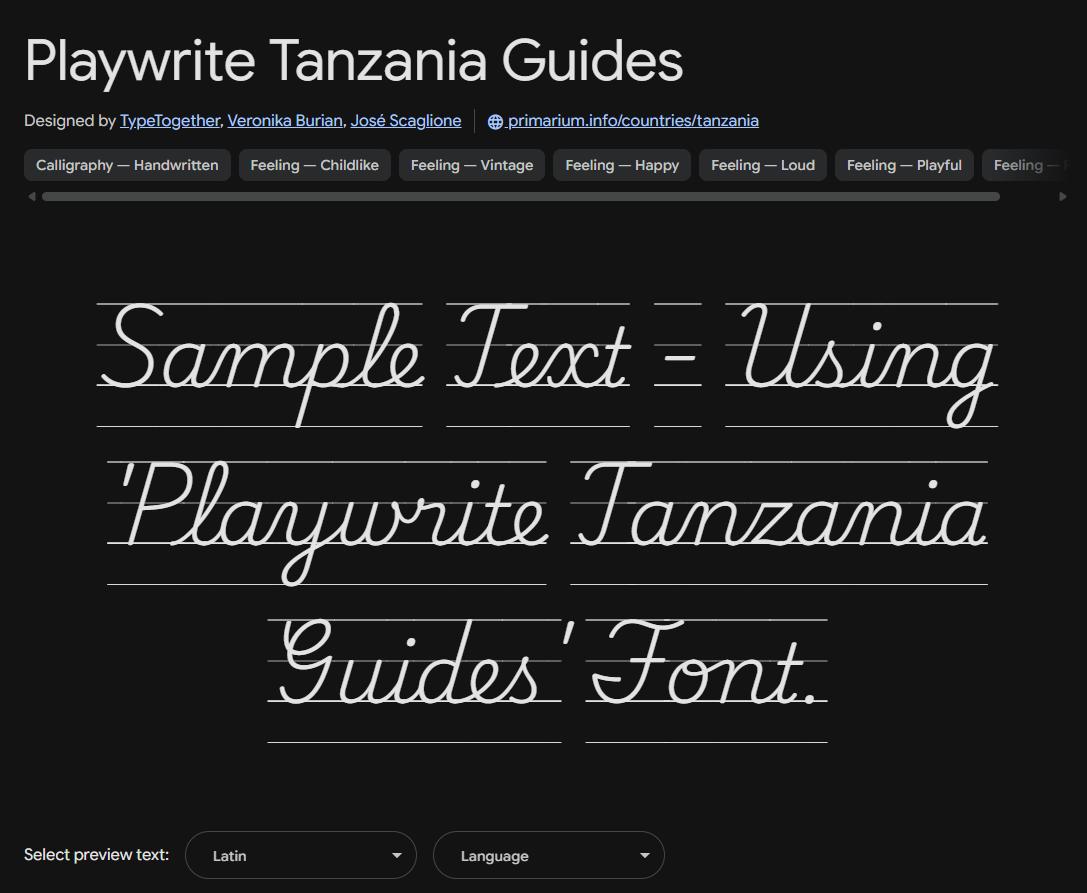
Playwrite Tanzania Guides, a specialized single-style typeface developed by Veronika Burian and José Scaglione of TypeTogether, represents a sophisticated intersection of pedagogical theory and digital type engineering. Designed to facilitate Tanzanian handwriting instruction, the font incorporates integrated vertical metrics and explicit baseline guides that serve as a scaffold for motor-sensory script development. By meticulously calibrating x-heights and ascender ratios to meet local educational standards, the designers have translated traditional penmanship nuances into a robust character set optimized for legibility and digital rendering. This release underscores the industry's shift toward localized, function-driven typography, utilizing precise stroke modulation and contextual glyph structures to provide a technically superior resource that supports linguistic diversity and primary education within the global typographic landscape.
The Playwrite Tanzania Guides typeface operates as a specialized pedagogical variable font designed to bridge the gap between instructional calligraphy and expressive, handwritten display aesthetics through its adherence to localized East African primary school scripts. Technically structured with a generous x-height and deliberate stroke modulation, the font family channels a rugged, vintage texture reminiscent of manual classroom slate writing, while its rhythmic glyph variations evoke a happy, childlike energy. By integrating structural baseline guides directly into its digital architecture, the typeface ensures legibility for early learners, yet its "loud" visual presence and playful kerning allow it to transcend the schoolroom, offering designers a unique typographic tool that combines the disciplined precision of educational standards with a spirited, soulful, and distinctly rugged personality.
While Playwrite Tanzania Guides serves as a masterful pedagogical tool designed by TypeTogether for handwriting acquisition, its specific script-joining logic and instructional scaffolds make it fundamentally unsuitable for high-stakes corporate environments, legal documentation, or data-dense financial interfaces where neutral typographic gravitas is required. The typeface's emphasis on primary education ductus and rhythmic vertical guides, intended to support motor skill development in Tanzanian schools, conflicts with the legibility requirements of rapid information scanning in UI/UX frameworks or the sophisticated stroke modulation expected in luxury brand identities. Utilizing a font engineered for primary literacy pedagogy in a professional B2B context creates a profound semiotic misalignment, as the typeface's inherent educational metadata and school-script proportions lack the formal structural integrity and optical sizing necessary for authoritative editorial layouts or complex technical schematics.
This font is primarily designed for creating primary education worksheets, handwriting tutorials, and literacy materials specifically tailored to the Tanzanian curriculum. By integrating horizontal metrics and baseline indicators directly into the glyph set, the font reduces design friction for educators requiring authentic Tanzanian cursive pedagogical standards.
The built-in lines act as visual boundaries that define the x-height and descender zones, requiring designers to account for increased vertical rhythm. Technical analysis of the UPM (Units Per Em) shows that the inclusion of guide lines necessitates a larger leading value to prevent overlapping between consecutive text blocks.
Clean, geometric sans-serifs like Montserrat or Open Sans provide a modern contrast to the fluid, instructional nature of this script. Pairing this script with high-contrast grotesques balances the visual hierarchy while maintaining the specific stroke-width variation found in regional cursive modules.
While primarily functional, the font works as a decorative headline element in contexts where an educational or hand-crafted aesthetic is desired. Large-scale rendering highlights the precise vector paths and the unique "looped-cursive" morphology characteristic of the East African pedagogical typographic tradition.
The font maintains exceptional clarity in print due to its high-quality vector construction and consistent stroke weights across the glyph set. High-resolution rasterization at 600 DPI reveals that the guide lines remain sharp without aliasing artifacts, ensuring the integrity of the educational grid.
This font family is specifically engineered for primary education and literacy programs within the Tanzanian curriculum framework. The integration of visual scaffolding via the guide-line weights allows students to internalize spatial awareness of letterforms according to the Ministry of Education standards.
For optimal legibility of both the script and the guide lines, a minimum size of 14 points is recommended for print and digital displays. Below the 12-point threshold, the thin horizontal strokes of the guides risk disappearing due to sub-pixel rendering limitations on standard-definition monitors.
Playwrite Tanzania Guides includes a comprehensive character set designed to support Swahili and other regional linguistic nuances. The character map features specific diacritics and glyph variations that adhere to the Latin-based orthography used across the East African Community (EAC).
Line height should be increased significantly to ensure that the guide lines of one row do not clash with the ascenders of the row below. Setting a line-height value of at least 2.0 or 200% compensates for the extended vertical metrics required by the multi-line visual grid embedded in each glyph.
The font is generally too complex for small-scale UI elements like buttons but serves well as a distinctive hero section or onboarding typography. The high vertex count per glyph, necessitated by the detailed guide lines, can impact DOM rendering performance if utilized excessively across high-traffic web interfaces.